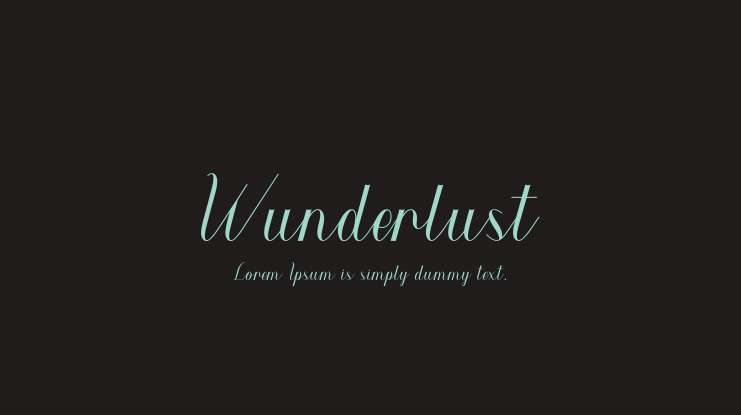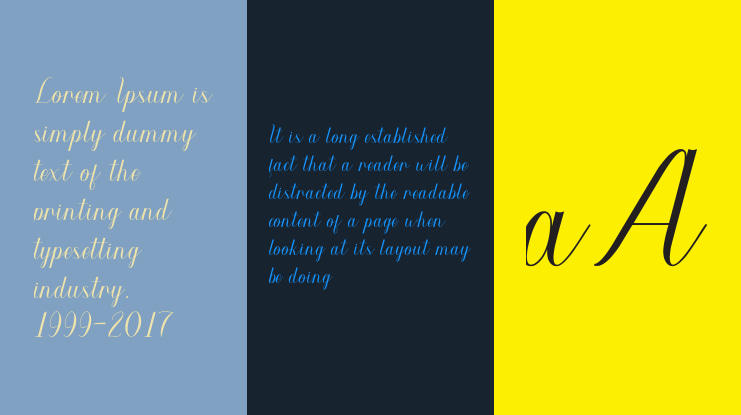
Wunderlust Font
Wunderlust is a stunning script font with a romantic feel. Fall in love with its bold swashes, and turn any design project into a standout.